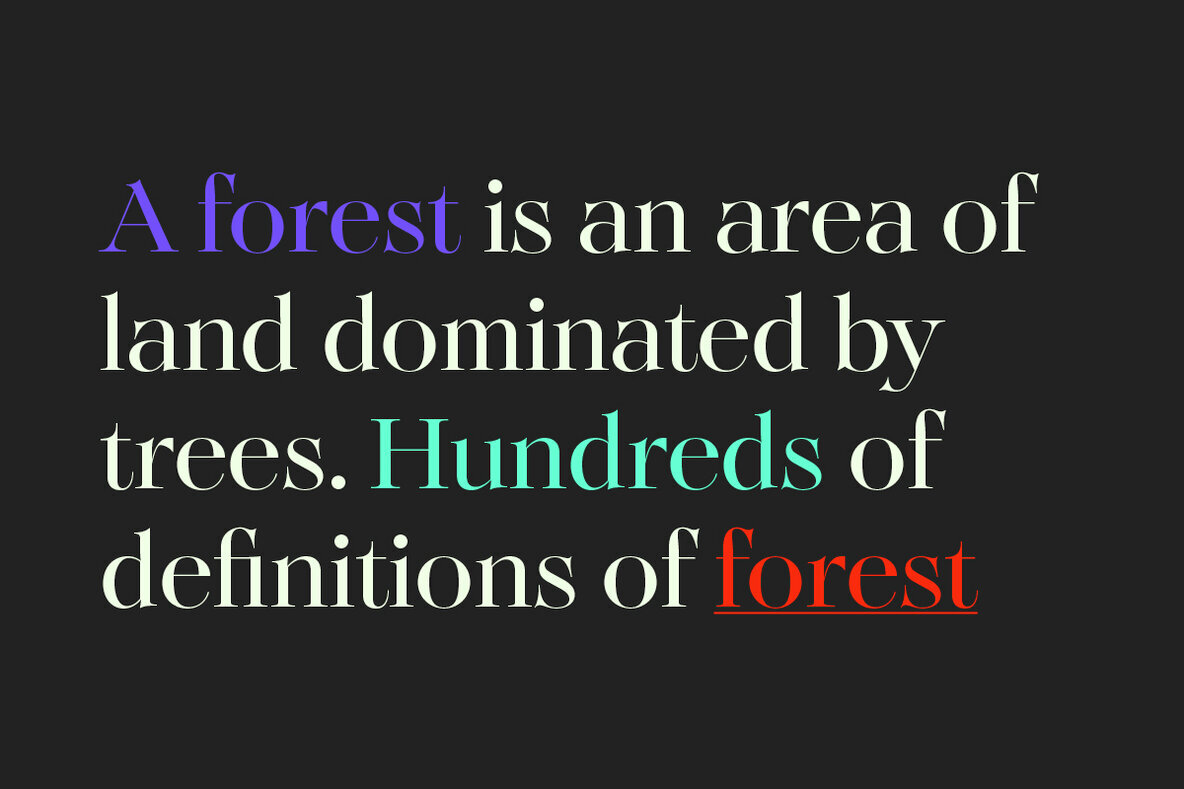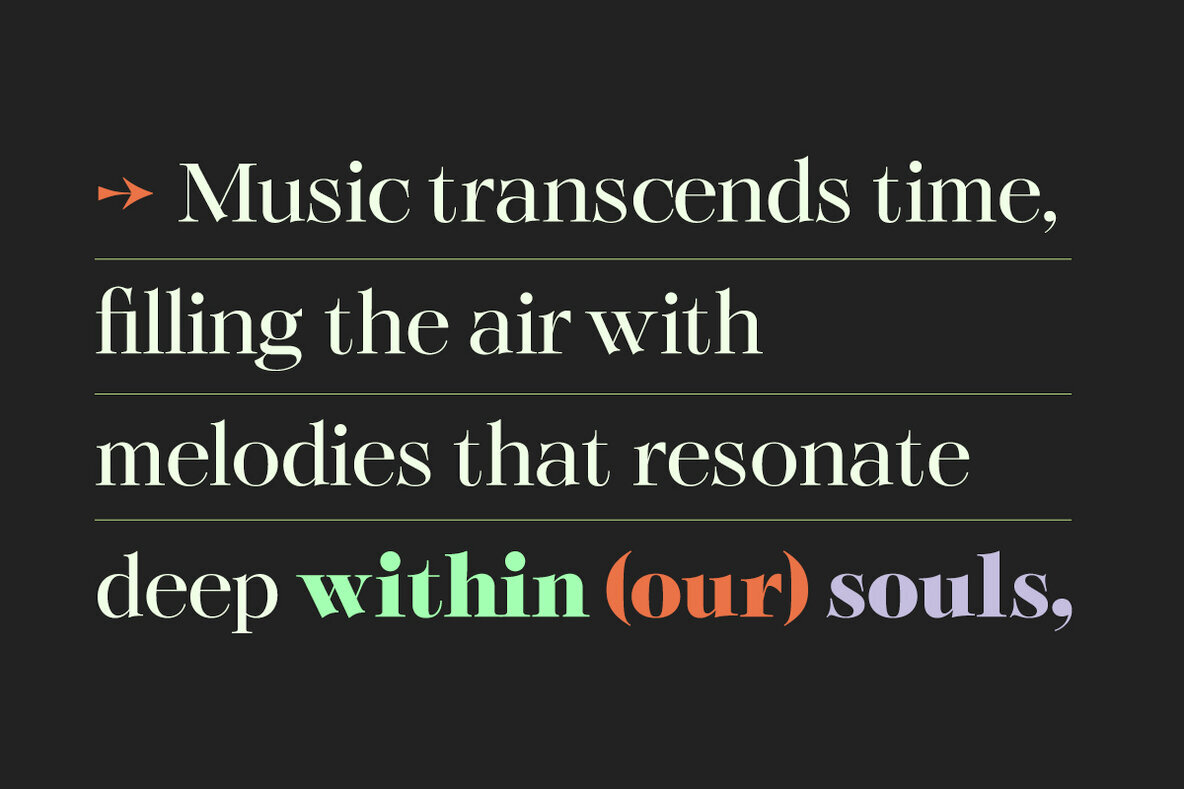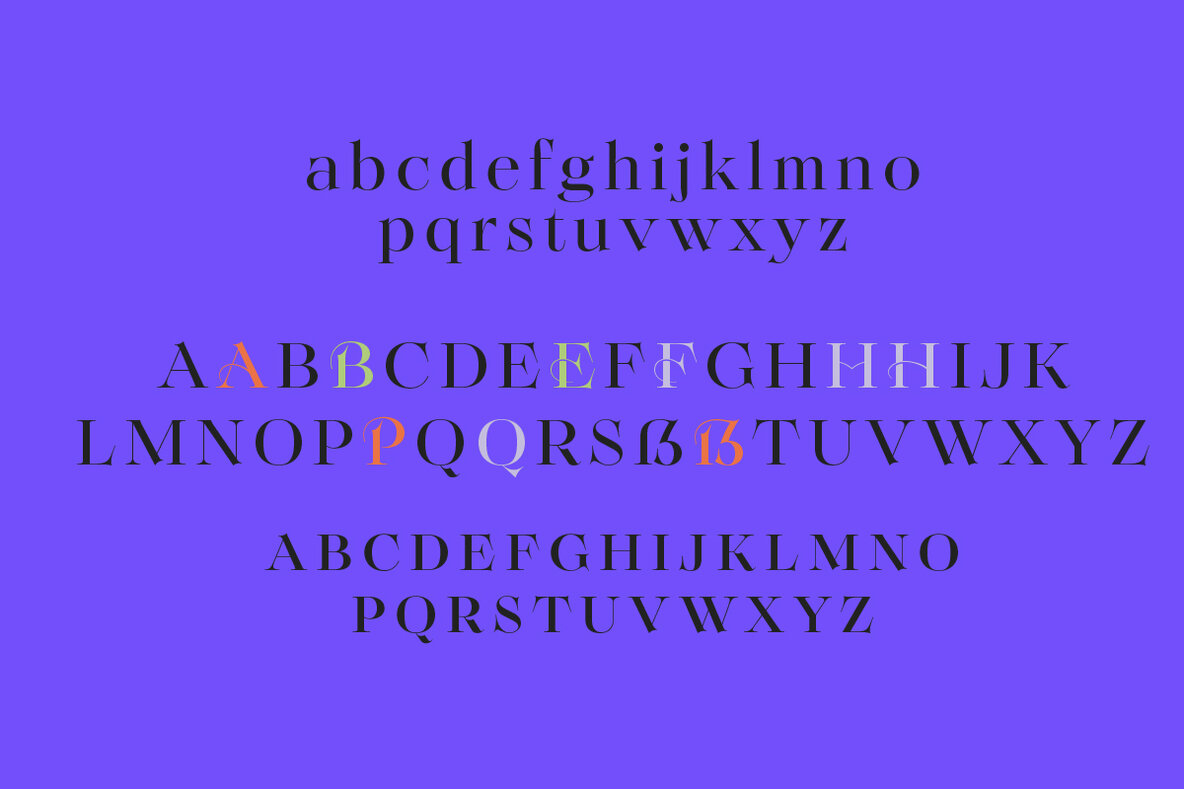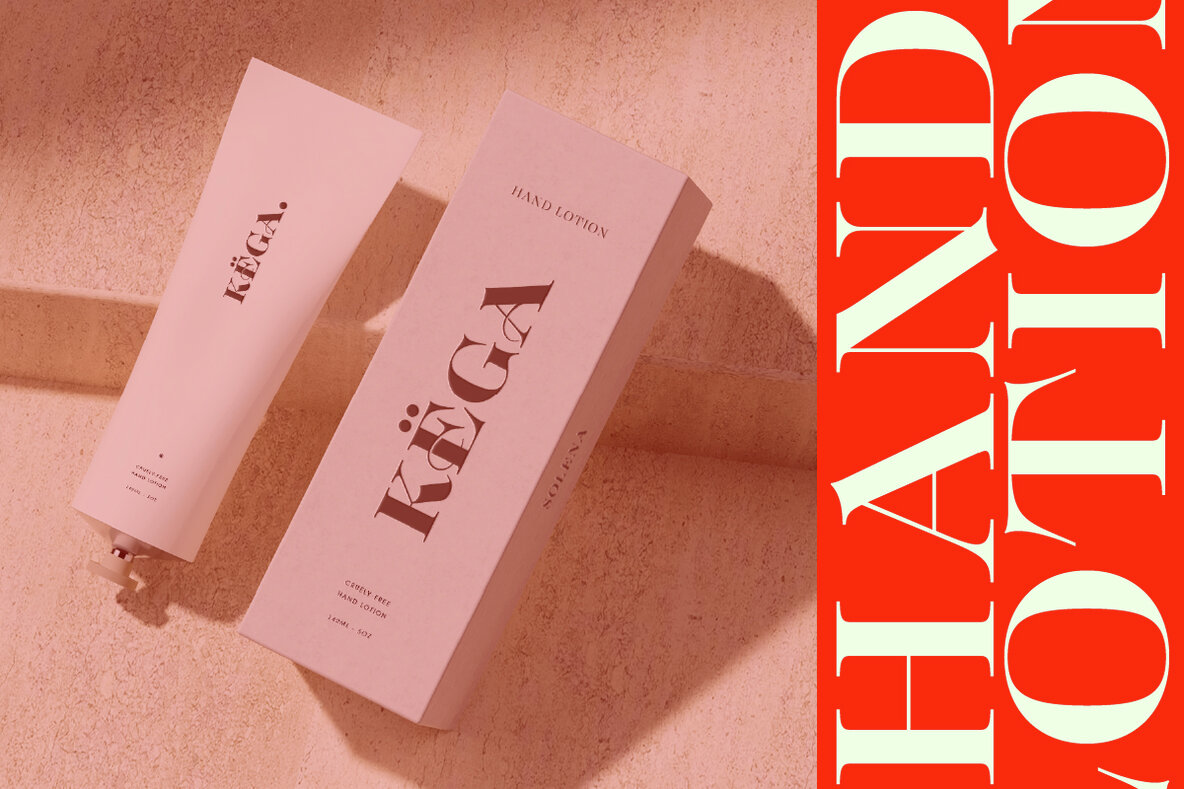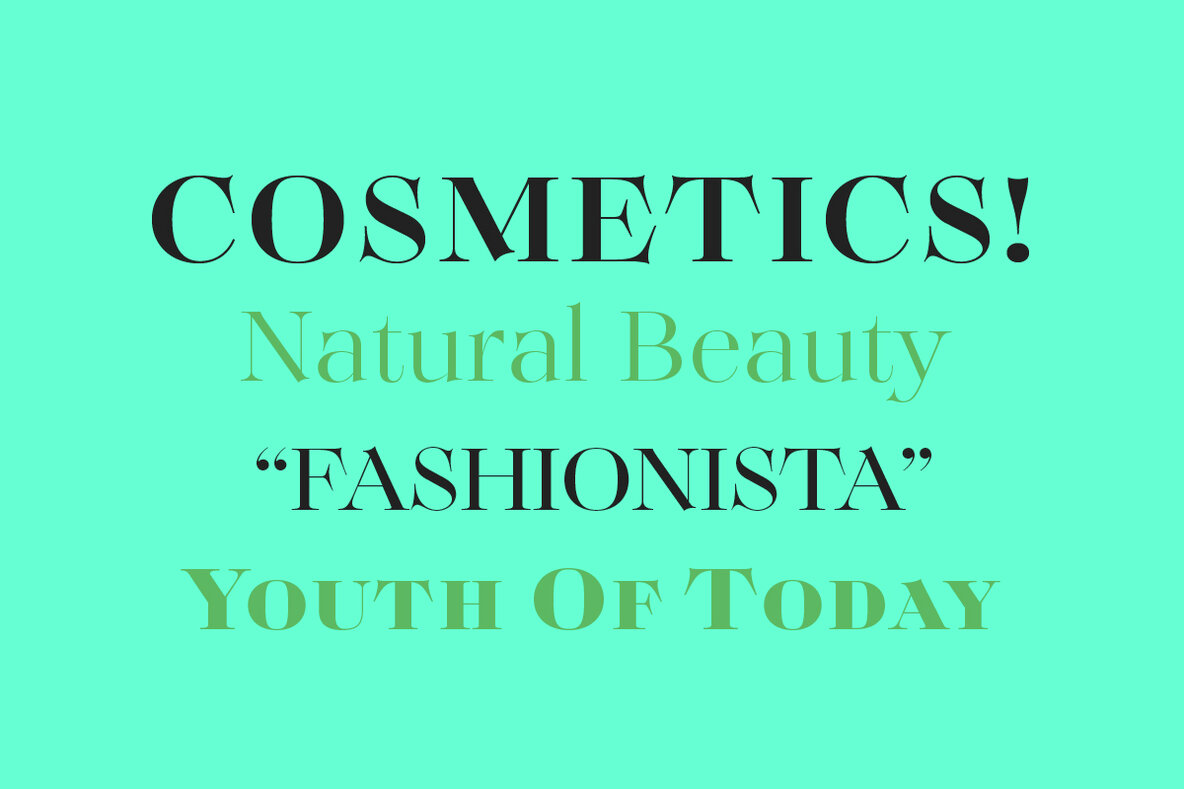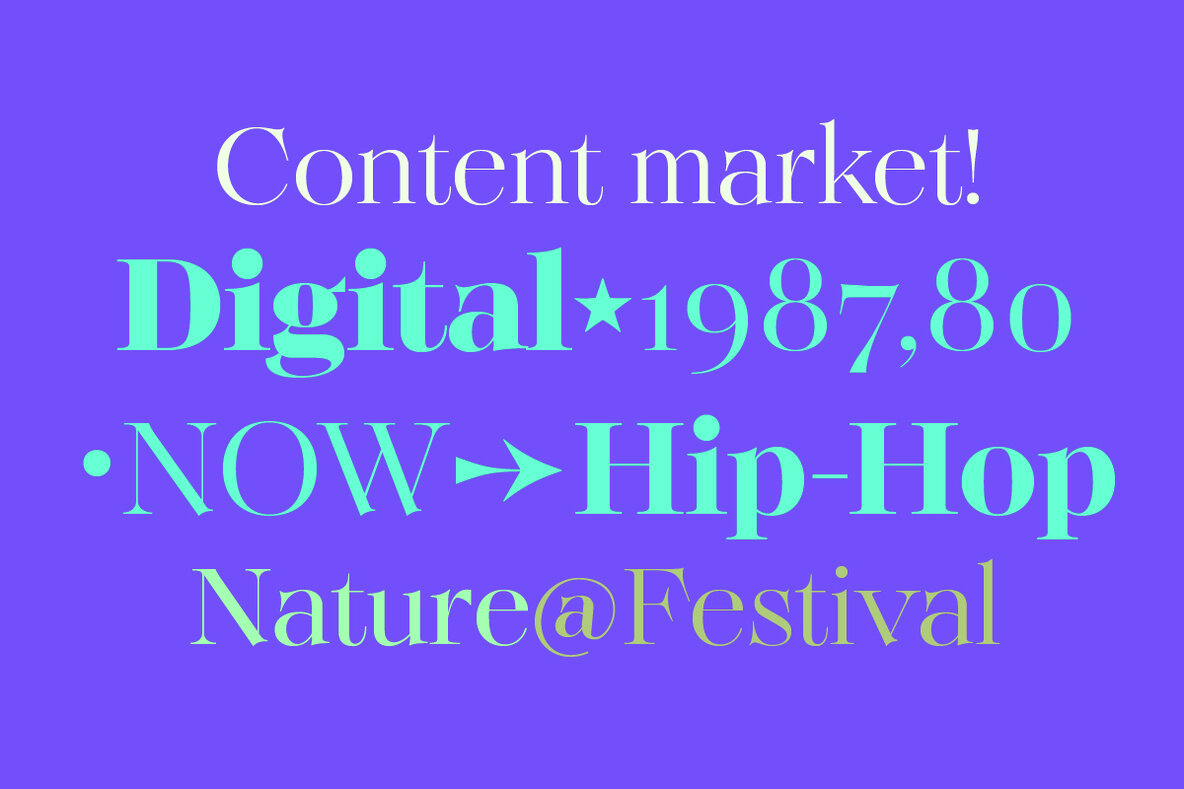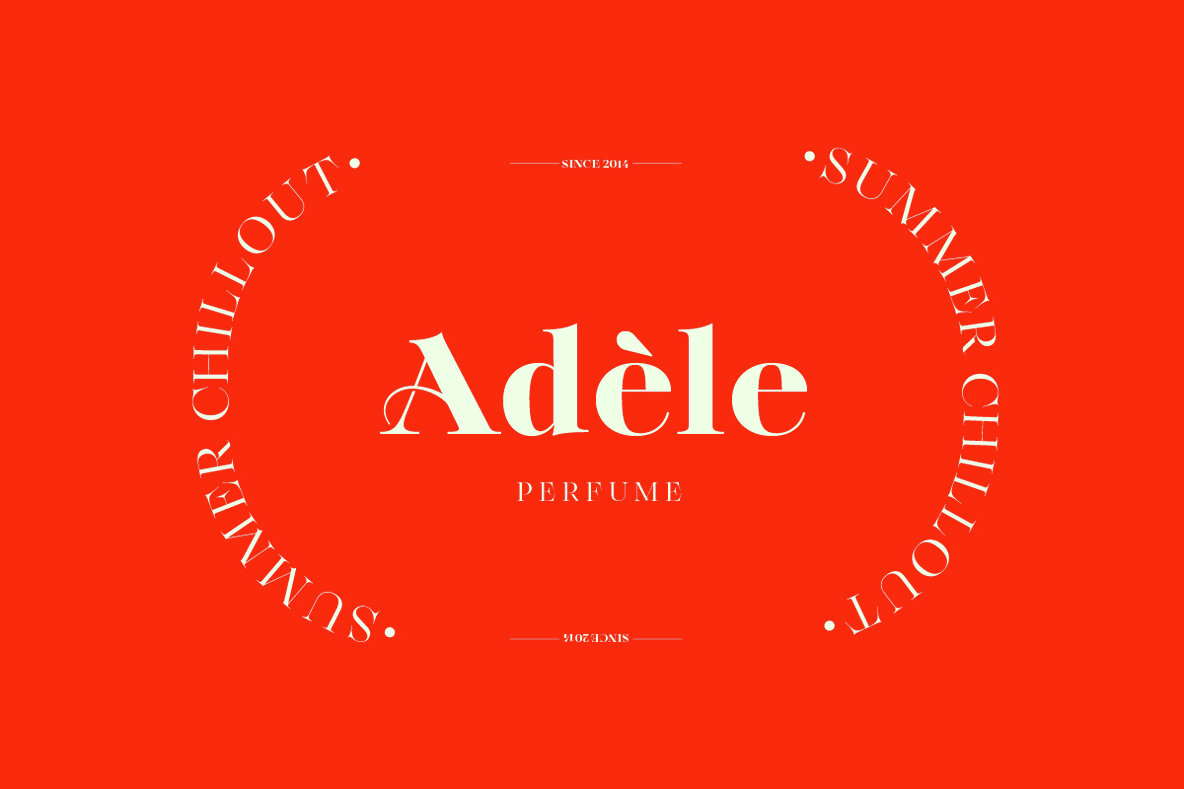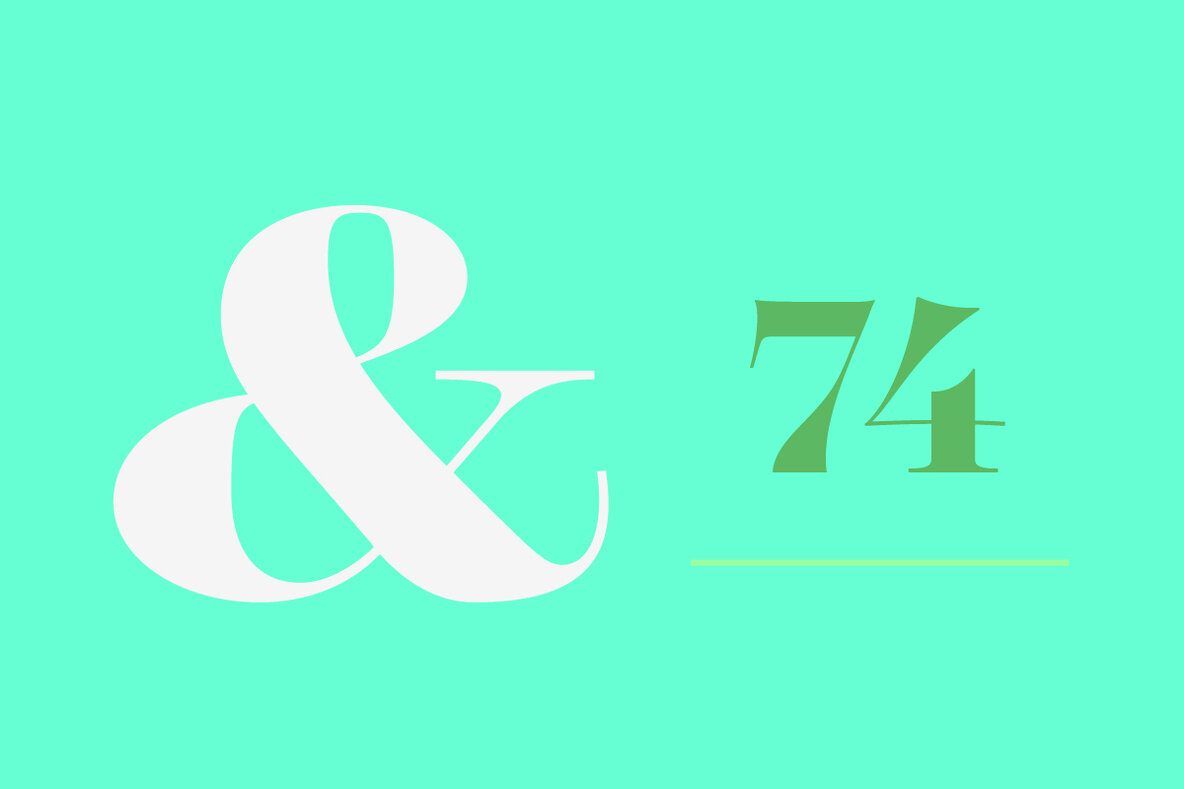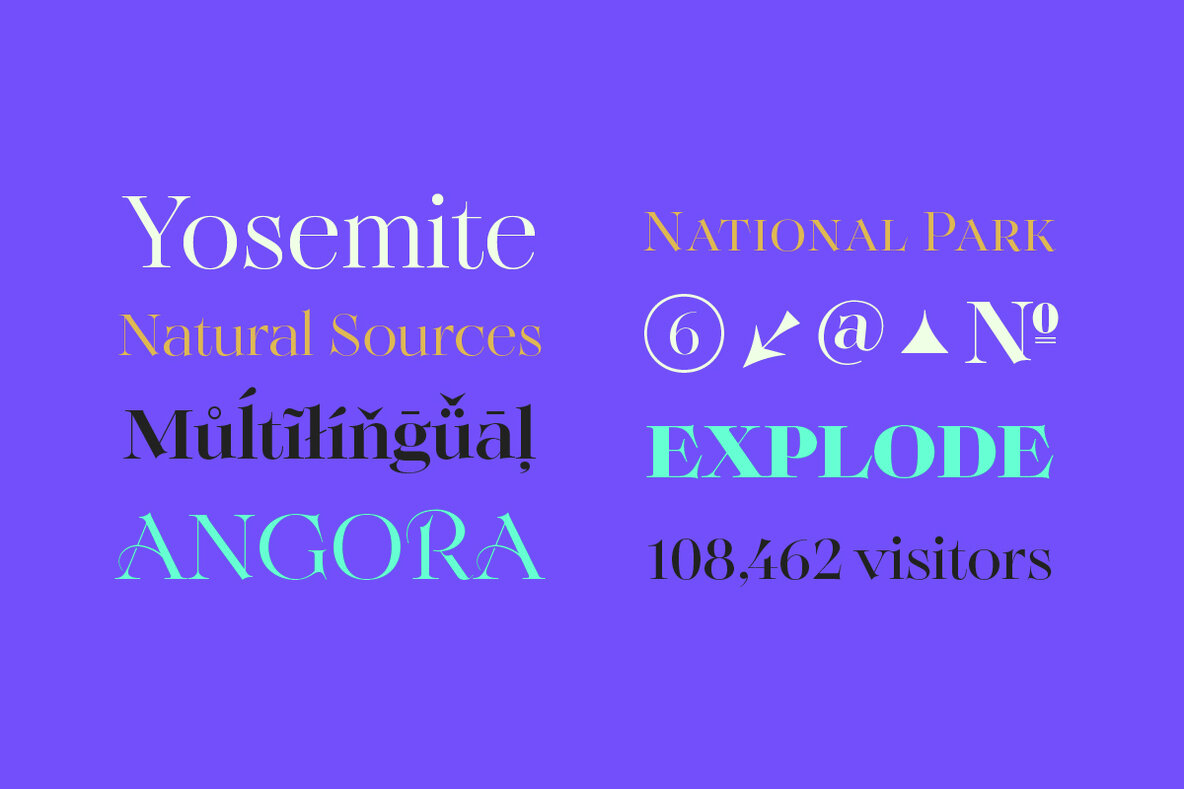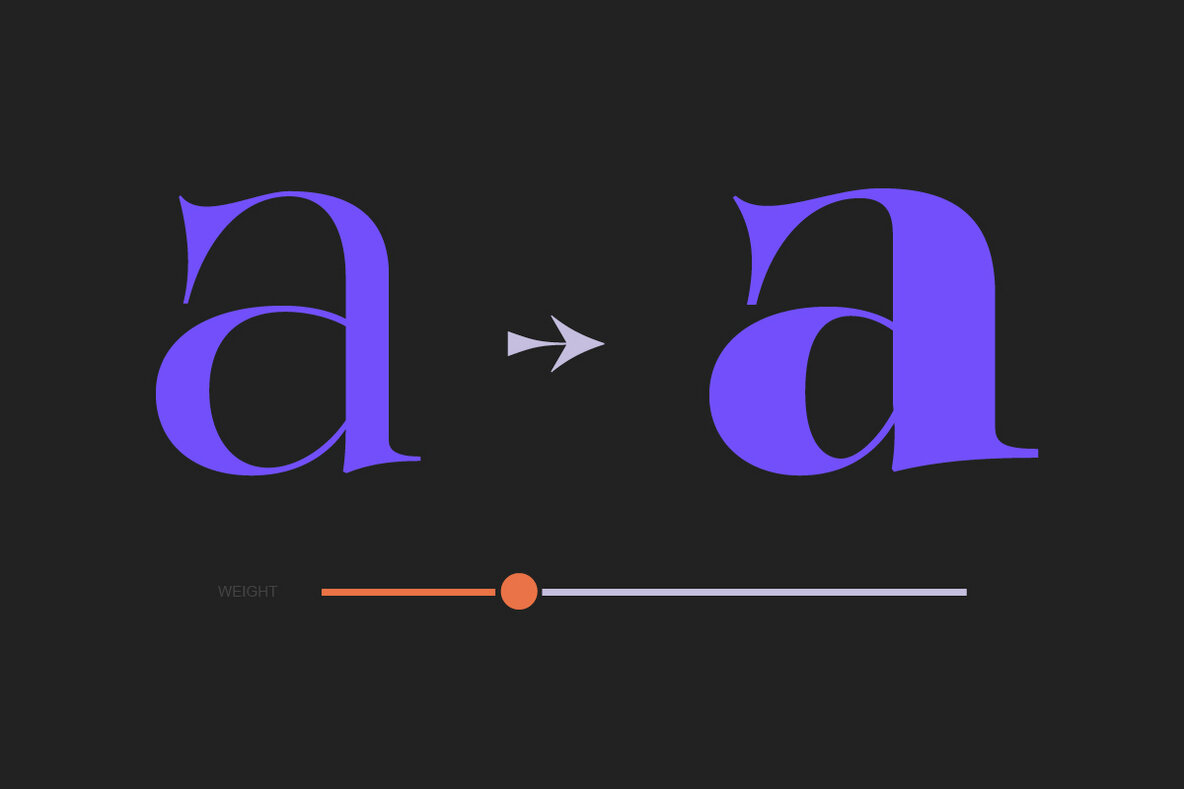
Solena Pro Font
An Ode to the Typographic Opulence of Rococo Solena Pro is a serif font family that blends typographic excellence with the demands of professional visual creators. Consisting of 14 distinct styles, It draws inspiration from the opulence of the Rococo style, a French artistic trend characterized by extravagant ornaments and exuberant curves. This font family elegantly reinterprets the legacy of the Rococo alphabet, as originally designed by Charles E. Heyer and published by the prestigious Boston Type Foundry in 1884. Solena Pro celebrates the baroque aesthetic by retaining generous and sharp serifs that give letters a commanding presence. The spacing between characters, known as kerning, is deliberately wide, allowing each letter ample room to flourish. The lavish curves of letters such as C, G, and Q captivate the eye with their exuberance, while the counters, the enclosed spaces within letters, close with a firmness that imparts each character with a solid and assured appearance. Solena Pro goes beyond mere visual elegance by offering advanced typographic support. Its OpenType features, including small capitals, ligatures, old-style figures, and professional kerning, ensure maximum flexibility for your most demanding graphic projects.
In this modern incarnation of Rococo, Solena Pro provides a sophisticated typographic experience. Each set of letters for titles is meticulously crafted, adorned with curved crossbars that add a touch of refinement to your compositions. Moreover, the 15 available stylistic sets allow for a wide range of variations, enriching your designs while preserving a timeless aesthetic.